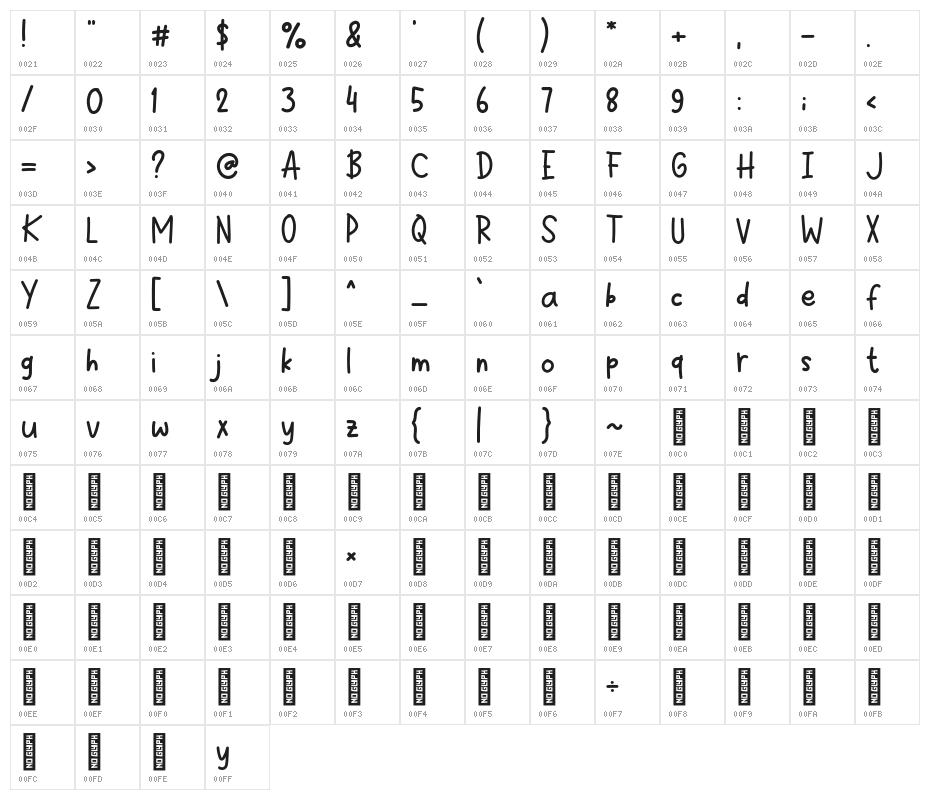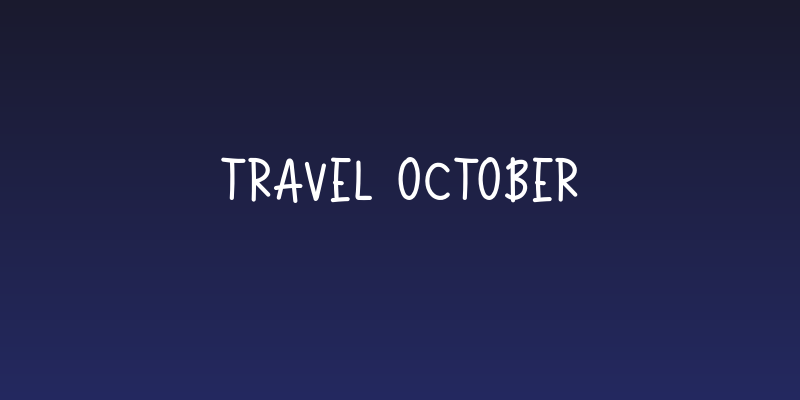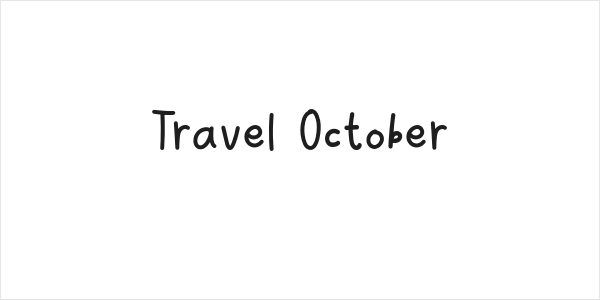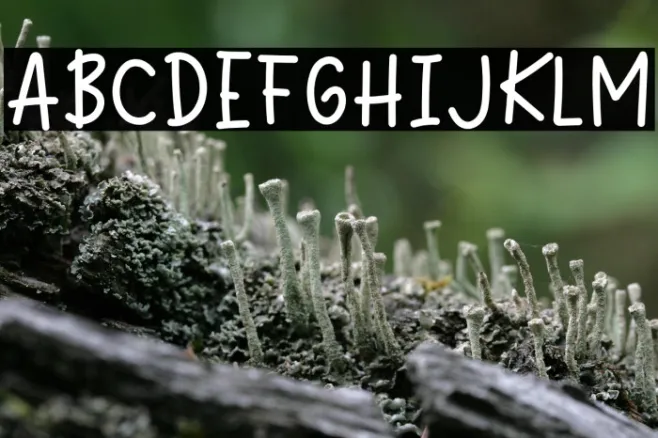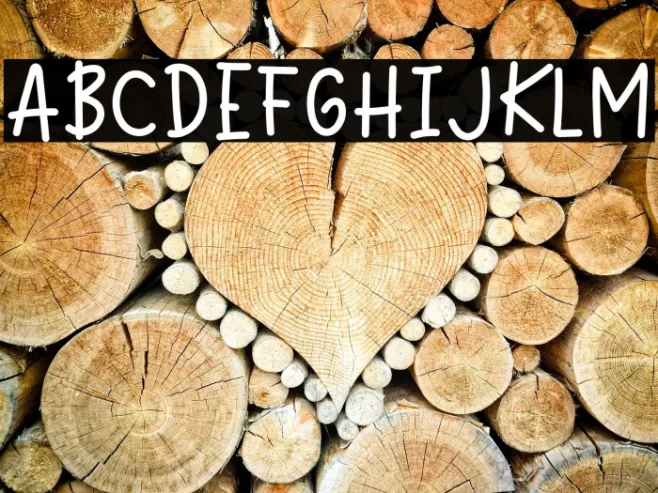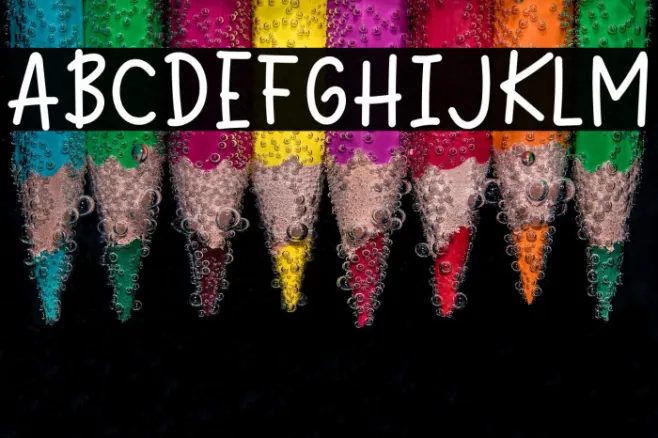
Travel October Font
Travel October Description
This font features a playful and casual handwritten style, characterized by its rounded and slightly irregular letterforms. The uppercase and lowercase letters maintain a consistent flow, giving it a friendly and approachable appearance. The numerals and special characters are designed to match the overall informal aesthetic, making it suitable for projects that require a personal touch. The strokes are uniform in width, contributing to a clean and legible look. This font is versatile and can be used in various creative contexts where a relaxed and informal vibe is desired.
| Proposed Projects | Ideal for greeting cards, children's books, casual branding, and social media graphics. |